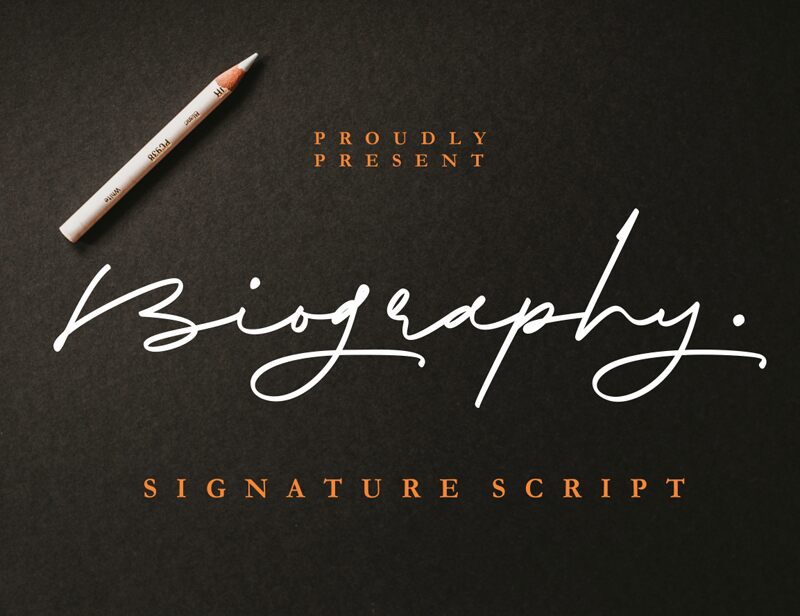
Biography
Biography, a captivating handwritten font by Letternun, adds a touch of elegance and personality to any project. With its light weight and signature style, this font is perfect for creating stunning wedding invitations that exude romance and sophistication.
Its graceful curves and fluid strokes also make it an ideal choice for fashion blogs, beauty branding, and lifestyle magazines. Biography effortlessly conveys a sense of intimacy and authenticity when used in personal journals or heartfelt letters.
Let this exquisite font infuse your designs with a distinctive charm that leaves a lasting impression.